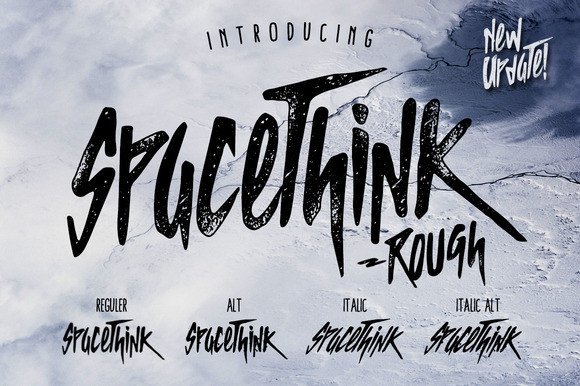
Spacethink Font: The Ultimate Guide to this Awesome Brush Script Font
Are you looking for a font that can add a touch of carefree energy to your branding or merchandise? Look no further than the Spacethink font. This rough and masculine brush script font is perfect for alternative projects and is sure to make your brand stand out. In this article, we’ll take a closer look at the Spacethink font, its features, and how you can use it to elevate your brand.
What is Spacethink Font?
Spacethink is a brush script font that is characterized by its rough and masculine look. It’s a unique font that has a carefree energy, making it perfect for brands that want to convey a sense of freedom and creativity. The font is designed to look like it was written with a brush, giving it a distinctive and artistic feel.
Key Features of Spacethink Font
- Rough and Masculine Look: The Spacethink font has a rough and masculine look that sets it apart from other fonts.
- Carefree Energy: The font has a carefree energy that makes it perfect for brands that want to convey a sense of freedom and creativity.
- Brush Script Style: The font is designed to look like it was written with a brush, giving it a distinctive and artistic feel.
- Alternative Vibes: The Spacethink font is perfect for alternative projects and merchandise.
Who is Spacethink Font Suitable for?
The Spacethink font is perfect for brands that want to convey a sense of freedom and creativity. It’s ideal for:
- Alternative Music Artists: The Spacethink font is perfect for alternative music artists who want to create a unique and edgy brand.
- Merchandise Brands: The font is great for merchandise brands that want to create bold and eye-catching designs.
- Art and Design Studios: The Spacethink font is perfect for art and design studios that want to create a creative and artistic brand.
- Lifestyle Brands: The font is great for lifestyle brands that want to convey a sense of freedom and adventure.
How to Use Spacethink Font
The Spacethink font is easy to use and can be incorporated into your branding or merchandise in a variety of ways. Here are some ideas:
- Logo Design: Use the Spacethink font to create a unique and eye-catching logo for your brand.
- Merchandise Design: Use the font to create bold and eye-catching designs for your merchandise.
- Social Media Graphics: Use the Spacethink font to create social media graphics that stand out.
- Packaging Design: Use the font to create unique and eye-catching packaging designs.
Benefits of Using Spacethink Font
There are many benefits to using the Spacethink font for your branding or merchandise. Here are some of the main advantages:
- Unique and Eye-Catching: The Spacethink font is unique and eye-catching, making it perfect for brands that want to stand out.
- Carefree Energy: The font has a carefree energy that makes it perfect for brands that want to convey a sense of freedom and creativity.
- Versatile: The Spacethink font is versatile and can be used in a variety of contexts, from logo design to merchandise design.
- Easily Readable: The font is easily readable, making it perfect for use in a variety of contexts.
The Spacethink font is a unique and eye-catching brush script font that is perfect for brands that want to convey a sense of freedom and creativity. Its rough and masculine look makes it ideal for alternative projects and merchandise. With its carefree energy and versatility, the Spacethink font is a great option for brands that want to stand out.